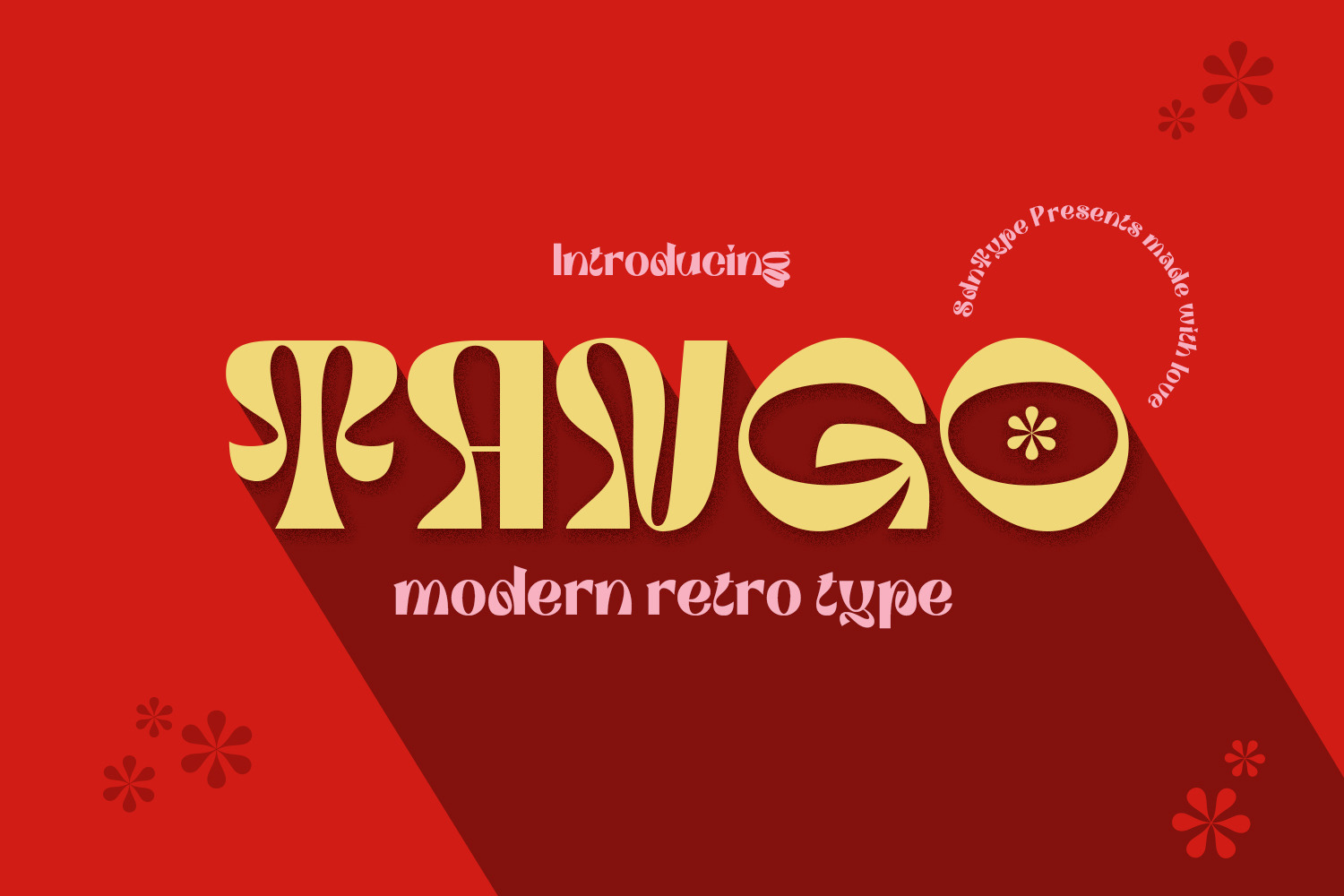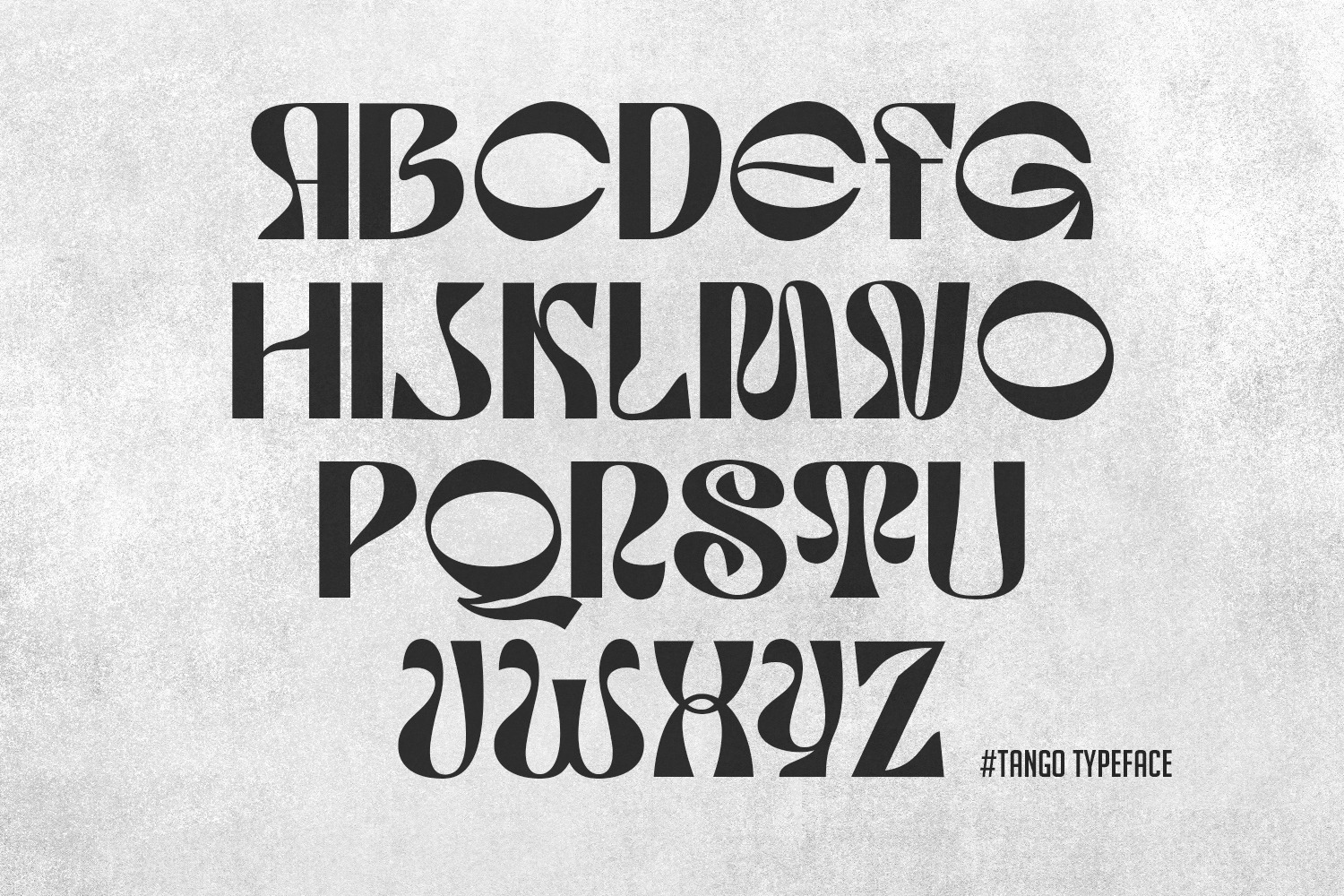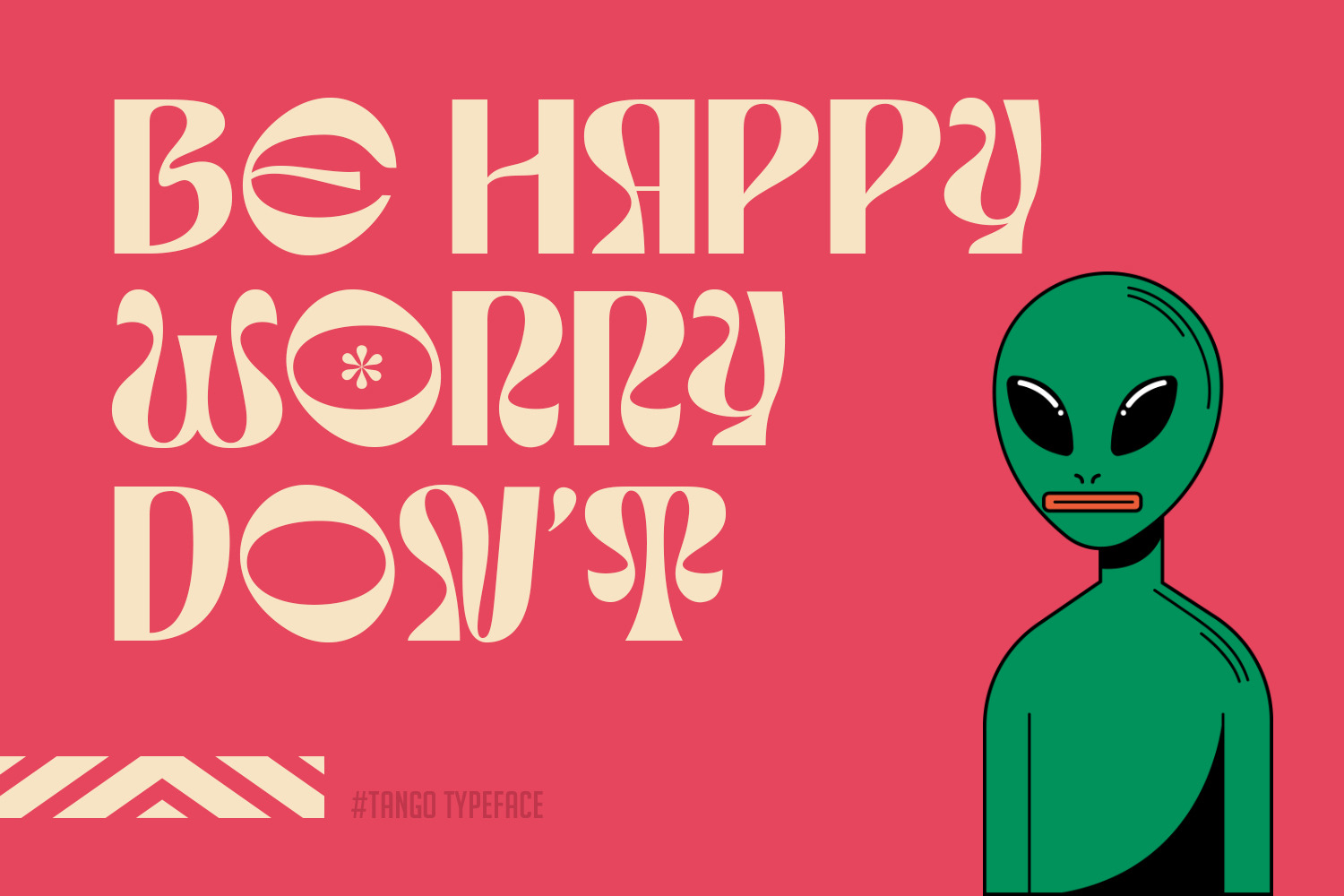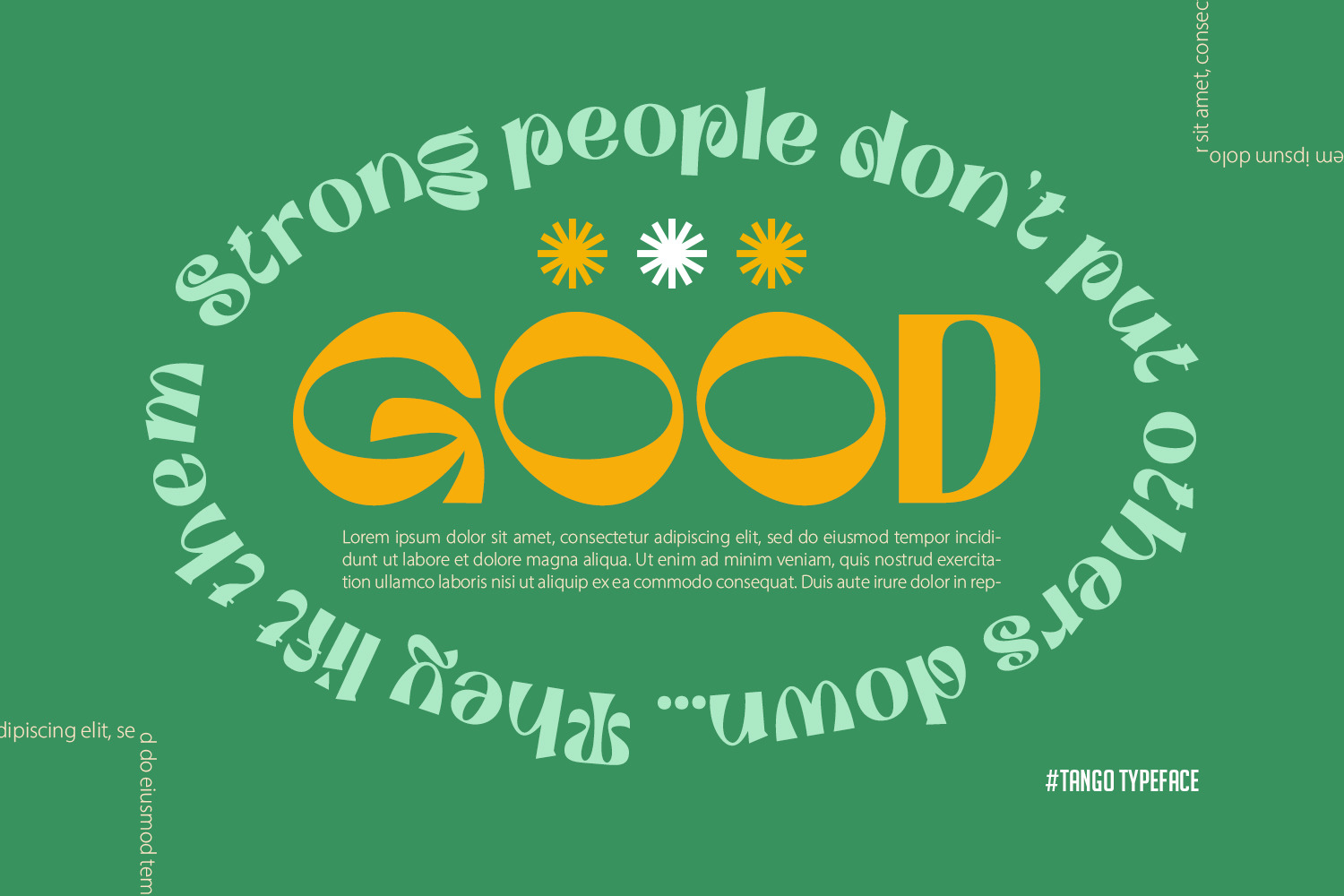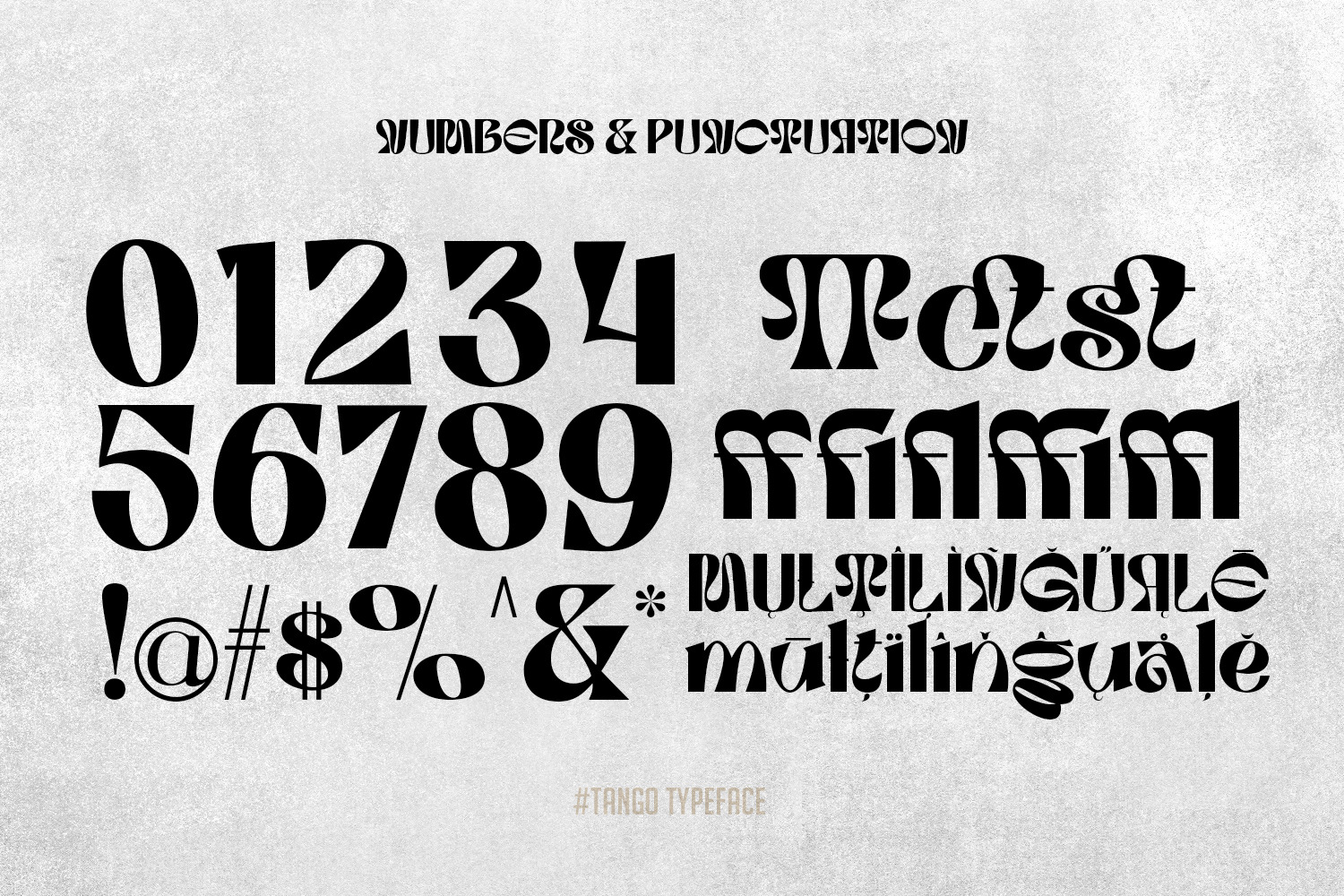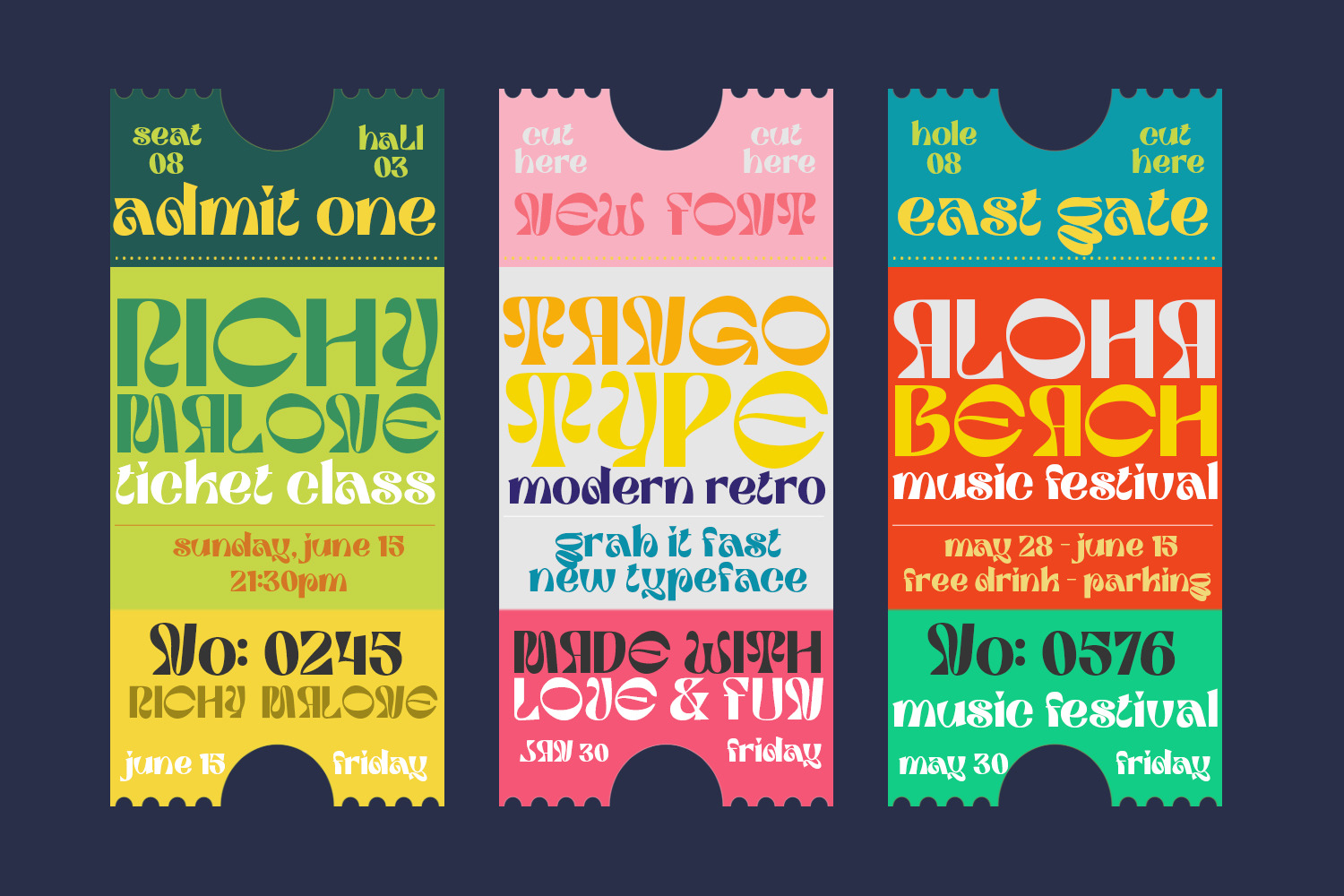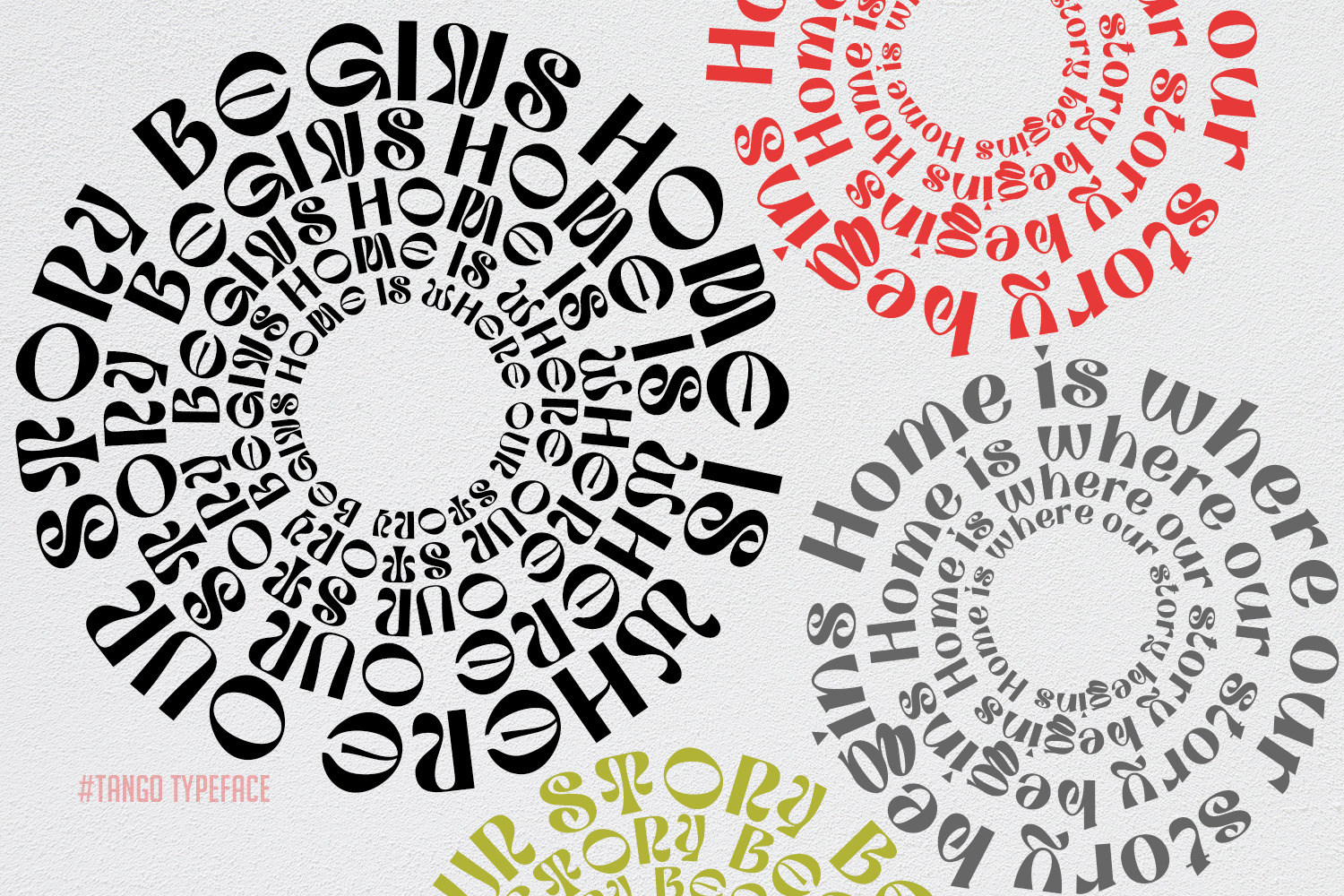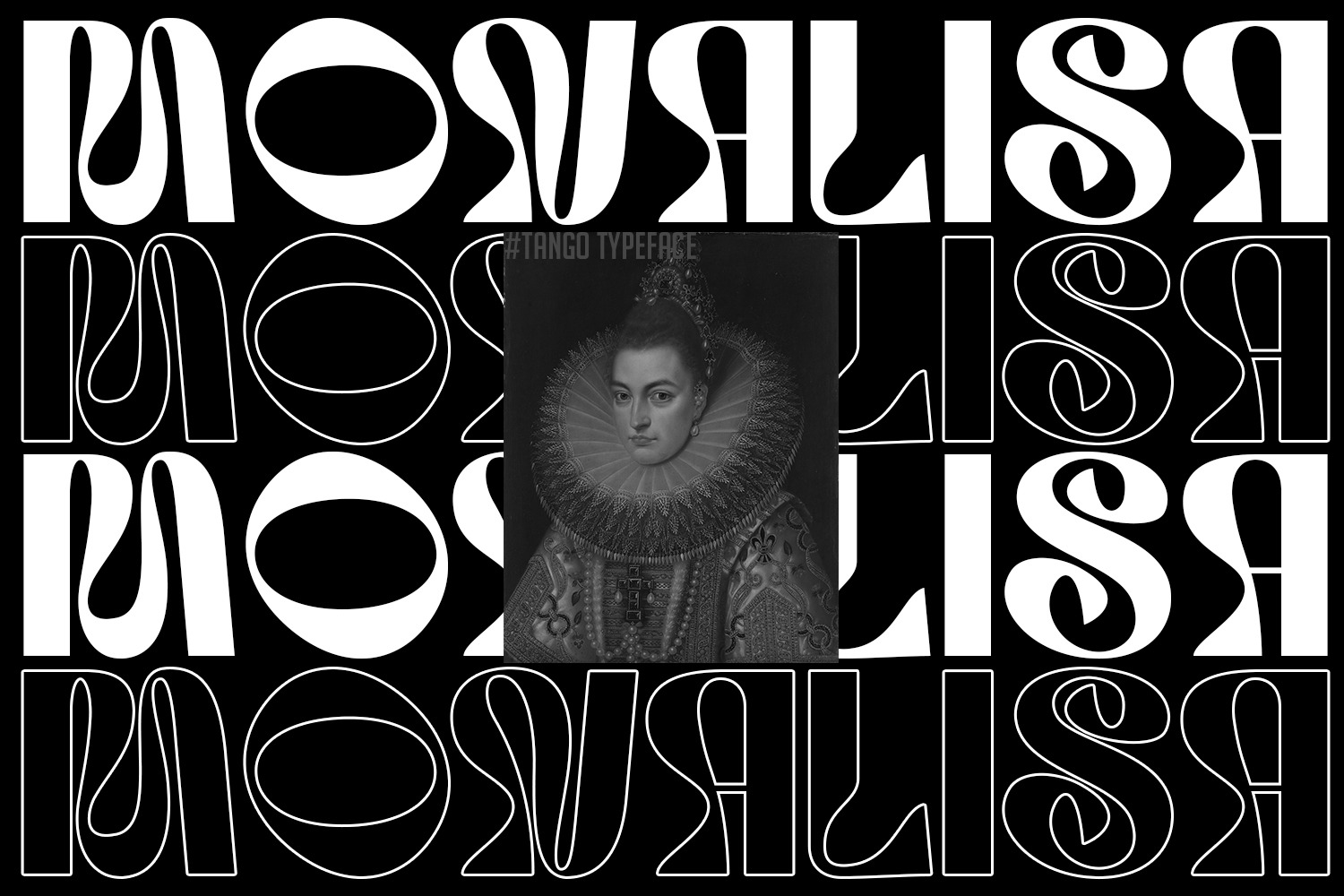
Tango - Display Font
Introducing Tango Modern Retro Font, use this font for any branding, product packaging, invitation, quotes, t-shirt, label, poster, logo etc.
- Number & Symbol
- International Glyphs
- Alternative
- Ligature